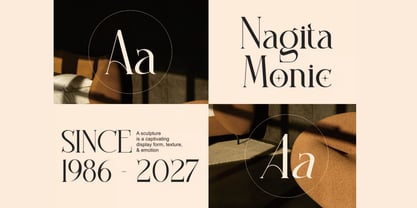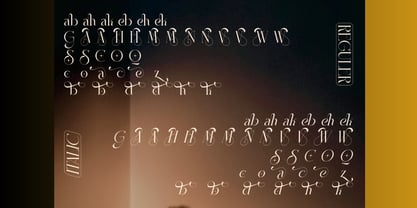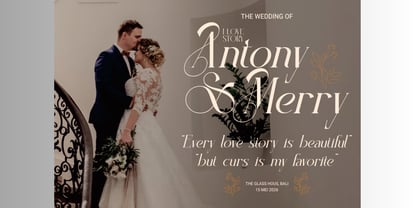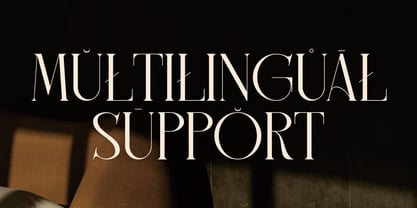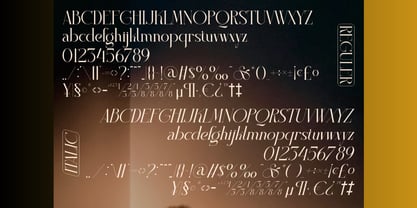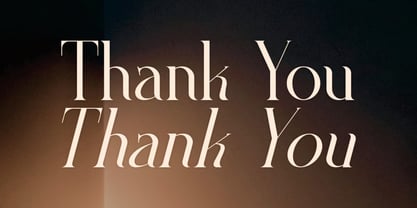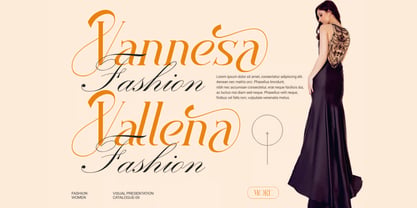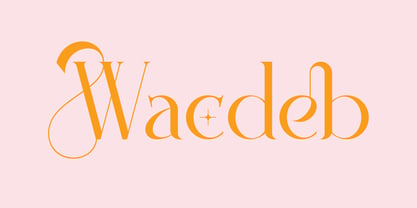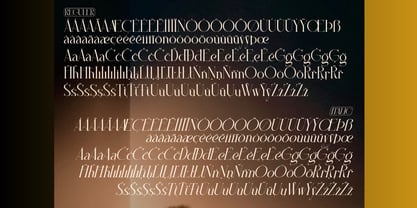
Wacdeb
von Hasnat Studio
Die Schriftfamilie Wacdeb wurde von Hasnat Khan entworfen und von Hasnat Studio veröffentlicht. Wacdeb enthält 1 Stile. Mehr über diese Familie
Wacdeb is a bold and modern condensed typeface engineered to make a strong visual statement. Combining powerful letterforms, sharp geometric construction, and distinctive cut details, Wacdeb delivers a commanding presence that instantly captures attention. Designed for high-impact communication, this typeface is ideal for projects that require confidence, strength, and a contemporary edge.
Its condensed structure allows you to maximize space while maintaining excellent readability and visual authority. Paired with stylish ligatures and an included italic version, Wacdeb offers flexibility for designers creating dynamic branding systems, impactful advertising campaigns, and modern editorial layouts.
Whether you're designing logos, posters, headlines, fashion campaigns, sports graphics, packaging, social media content, website banners, or creative branding materials, Wacdeb provides the bold character and professional versatility needed to stand out in any medium.
Key Features:
• Bold Condensed Typeface: Strong and impactful letterforms designed for modern display use.
• Unique Cut Details: Distinctive design elements that add personality and visual interest.
• Regular & Italic Styles: Flexible font family for expressive and versatile typography.
• Uppercase & Lowercase Letters: Complete character set for a wide range of design applications.
• Numerals & Punctuation: Essential characters for professional typography projects.
• Stylish Ligatures: Elegant character connections for polished text compositions.
• Modern Display Aesthetic: Ideal for contemporary branding and marketing materials.
Perfect For:
• Logo & Brand Identity Design: Create bold, memorable, and professional logos.
• Advertising & Marketing Campaigns: Deliver strong messages with impactful typography.
• Posters & Headlines: Perfect for attention-grabbing titles and promotional graphics.
• Fashion & Streetwear Branding: Add confidence and modern style to apparel projects.
• Sports & Esports Graphics: Strong visual presence for competitive and energetic designs.
• Editorial & Magazine Layouts: Ideal for headlines, covers, and feature articles.
• Web Design & Social Media: Enhance digital content with modern, bold typography.
Create bold and unforgettable designs with Wacdeb—a modern condensed typeface featuring powerful letterforms, stylish ligatures, and versatile regular and italic styles. Perfect for branding, logos, posters, advertising, fashion, sports graphics, editorials, and creative projects that demand maximum impact.
Designer: Hasnat Khan
Foundry: Hasnat Studio